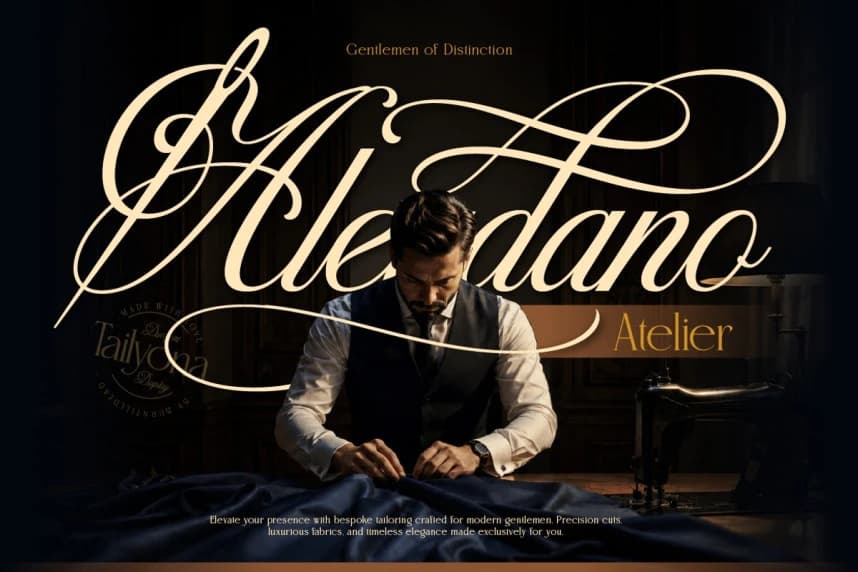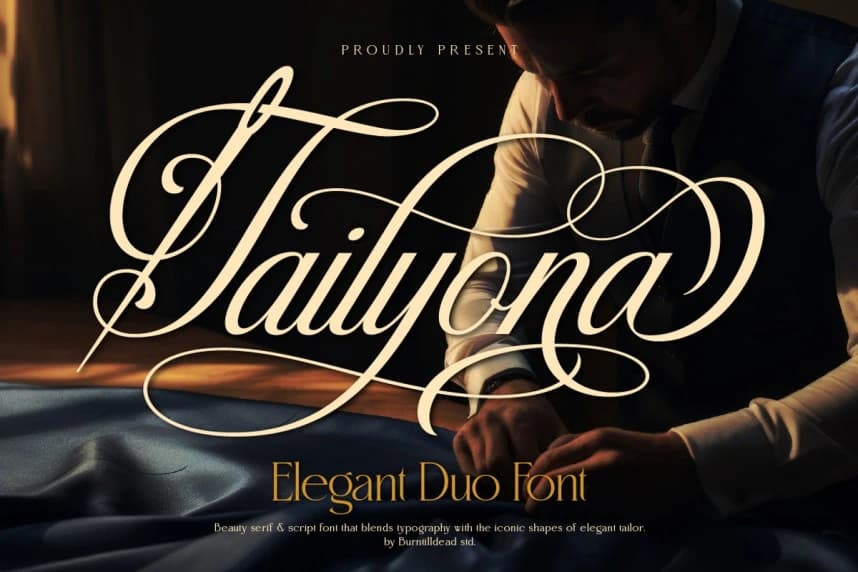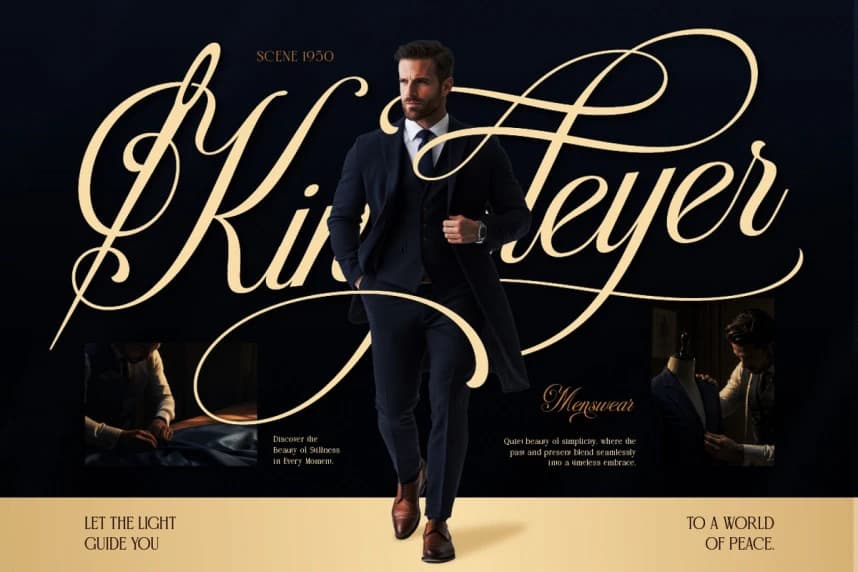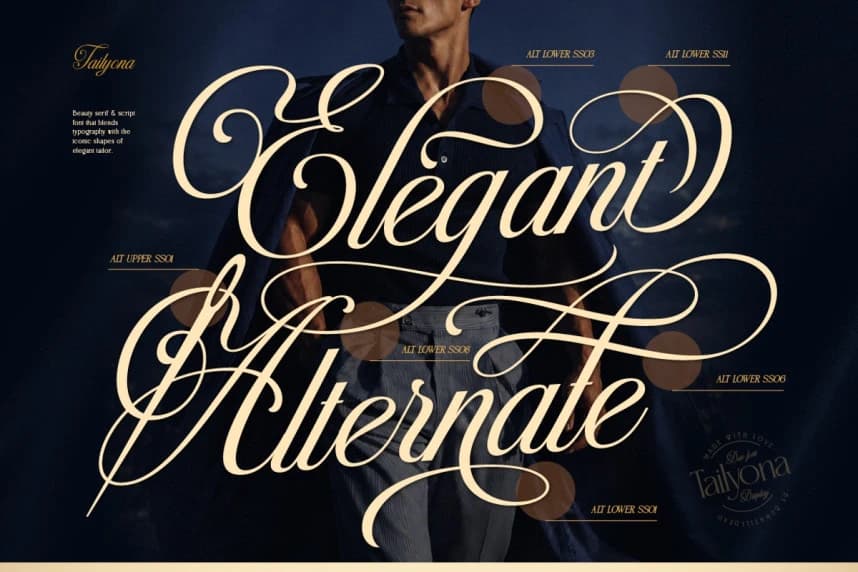
Tailyona Font
Tailyona Font is a refined elegant duo font that blends a graceful script with a clean, sophisticated serif. Designed to capture the essence of luxury and timeless style, this font brings a perfect harmony between expressive calligraphy and modern editorial typography.